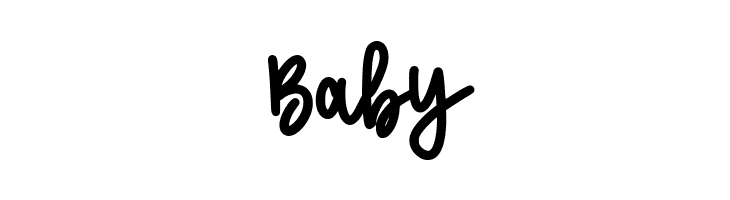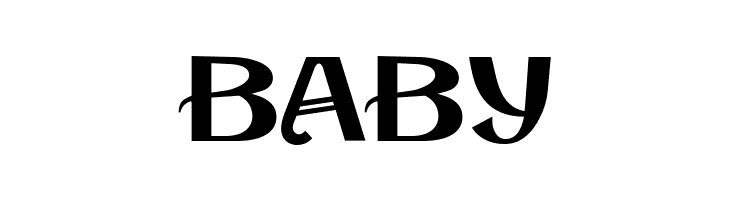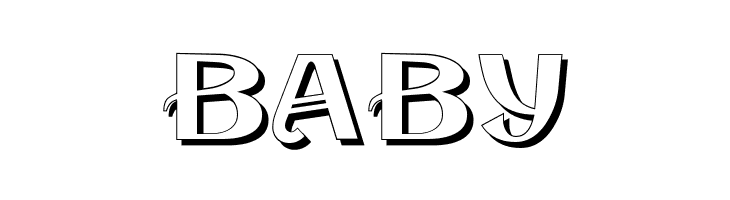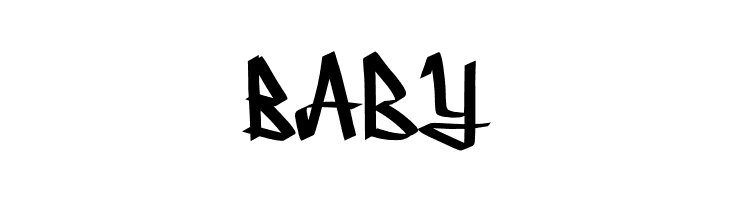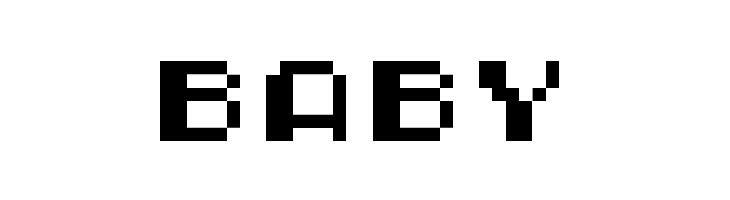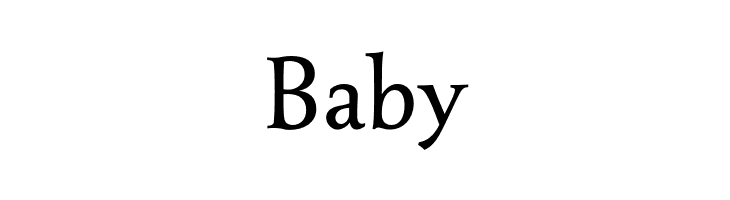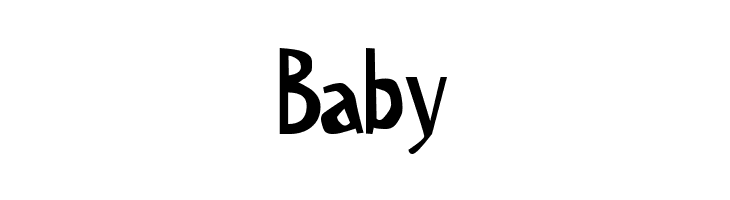
• Seruput Kopi - personal use
A bold, handwritten font with a playful and casual style.
• Serval
( Fonts by Maelle.K - Thomas Boucherie )
An elegant, high-contrast script font with decorative swashes and flourishes.
• ServeginDEMO
A classic serif font with modern elegance and high contrast.
• Service Games Oldskool
( Fonts by www.freakyfonts.de )
A pixelated, retro font inspired by classic video game graphics.
• Service Regular
A bold, three-dimensional font with geometric shapes and clean lines.
• Servin' For Salute
( Fonts by Mans Greback - www.mawns.com )
Bold, graffiti-inspired font with a dripping effect.
• Servin' For Salute Clean
( Fonts by Mans Greback - www.mawns.com )
A bold, condensed font with thick strokes and a striking, uniform appearance.
• Sesame Regular
A bold, decorative font with playful curves and flourishes.
• Sesame Shadow
Bold, playful font with a distinctive shadow effect for a three-dimensional look.
• Seshat-Regular
( Fonts by Sora Sagano - www.dotcolon.net )
A classic serif typeface with elegant curves and balanced proportions.